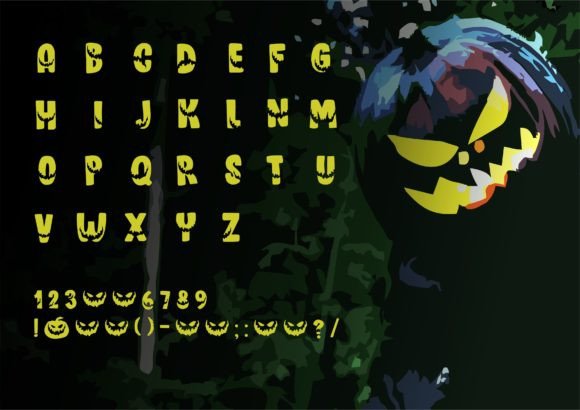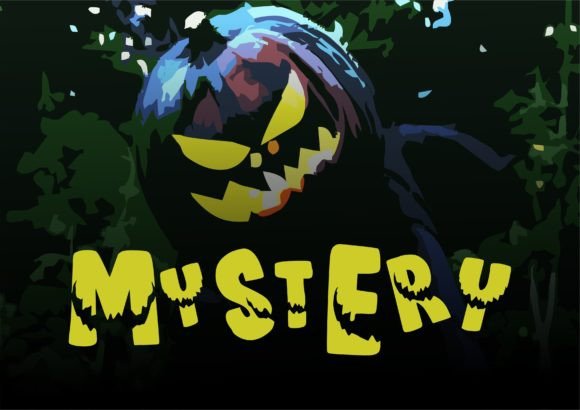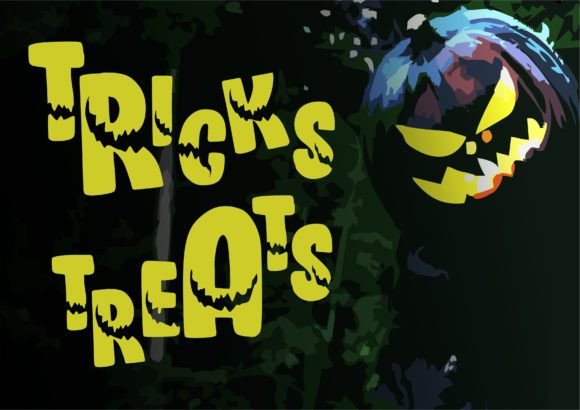
Halloween Spooky Font: Add a Touch of Eerie Elegance to Your Designs
Are you looking for a font that will add a spooky touch to your designs this Halloween season? Look no further than the Halloween Spooky Font. This unique and attractive display font is perfect for designers and crafters who want to create eye-catching and eerie designs that will stand out from the crowd.
What Makes Halloween Spooky Font So Special?
The Halloween Spooky Font is a one-of-a-kind display font that is sure to make your designs pop. Its spooky and slightly creepy design makes it perfect for Halloween-themed designs, but it’s also versatile enough to be used for other projects that require a touch of eerie elegance. Whether you’re designing invitations, posters, or social media graphics, this font is sure to add a unique and eye-catching element to your work.
Key Features of Halloween Spooky Font
- Unique and Attractive Design: The Halloween Spooky Font features a unique and attractive design that’s sure to grab attention. Its spooky and slightly creepy design makes it perfect for Halloween-themed designs.
- Display Font: This font is specifically designed as a display font, making it perfect for headlines, titles, and other design elements that need to stand out.
- Versatile: While the Halloween Spooky Font is perfect for Halloween-themed designs, it’s also versatile enough to be used for other projects that require a touch of eerie elegance.
How to Use Halloween Spooky Font in Your Designs
Using the Halloween Spooky Font in your designs is easy. Here are a few tips to get you started:
- Pair it with Other Fonts: The Halloween Spooky Font pairs well with other fonts, such as sans-serif fonts like Arial or Helvetica. Try pairing it with a bold font for a striking contrast.
- Use it for Headlines and Titles: The Halloween Spooky Font is perfect for headlines and titles. Use it to add a touch of eerie elegance to your designs.
- Add it to Your Social Media Graphics: Add the Halloween Spooky Font to your social media graphics to make them stand out. It’s perfect for creating spooky and eye-catching graphics for Halloween.
Why Designers and Crafters Love Halloween Spooky Font
Designers and crafters love the Halloween Spooky Font for a variety of reasons. Here are a few:
- Unique Design: The Halloween Spooky Font features a unique design that’s sure to grab attention. Its spooky and slightly creepy design makes it perfect for Halloween-themed designs.
- Versatile: The Halloween Spooky Font is versatile and can be used for a variety of design projects, from invitations and posters to social media graphics.
| Font Name | Hallowenn Spooky Font |
| Author | Mas Edit |
The Halloween Spooky Font is a unique and attractive display font that’s perfect for designers and crafters who want to add a touch of eerie elegance to their designs. Its spooky and slightly creepy design makes it perfect for Halloween-themed designs, but it’s also versatile enough to be used for other projects. With its easy-to-use design and versatile features, the Halloween Spooky Font is sure to be a hit with designers and crafters of all skill levels.